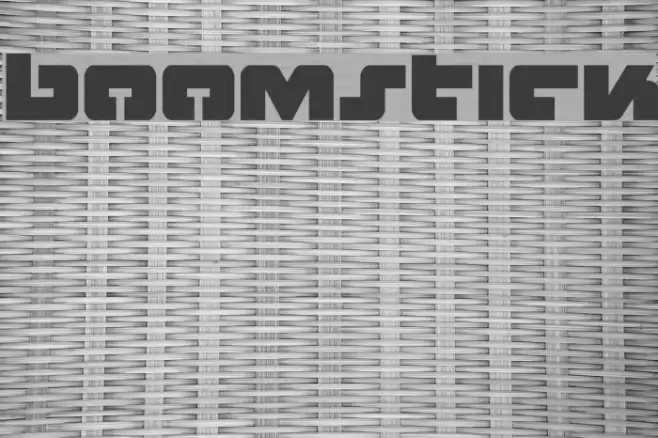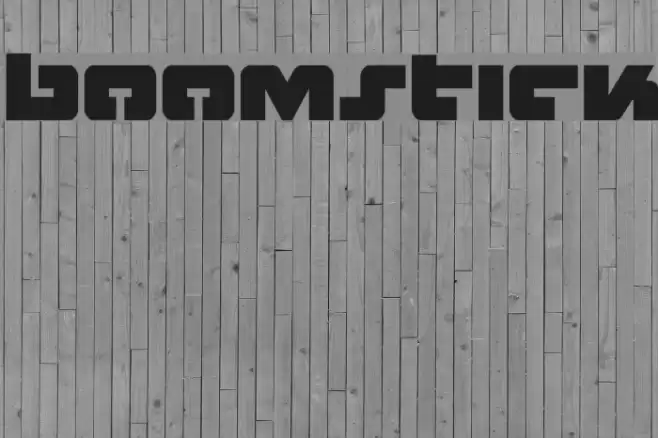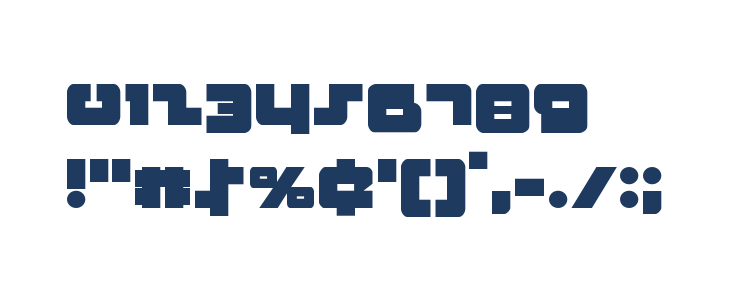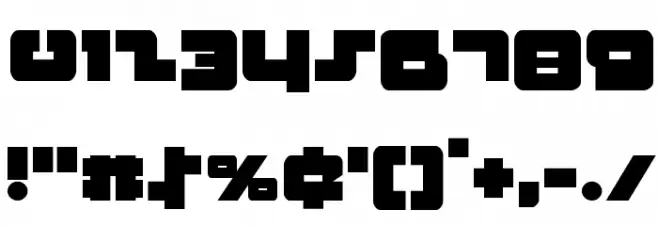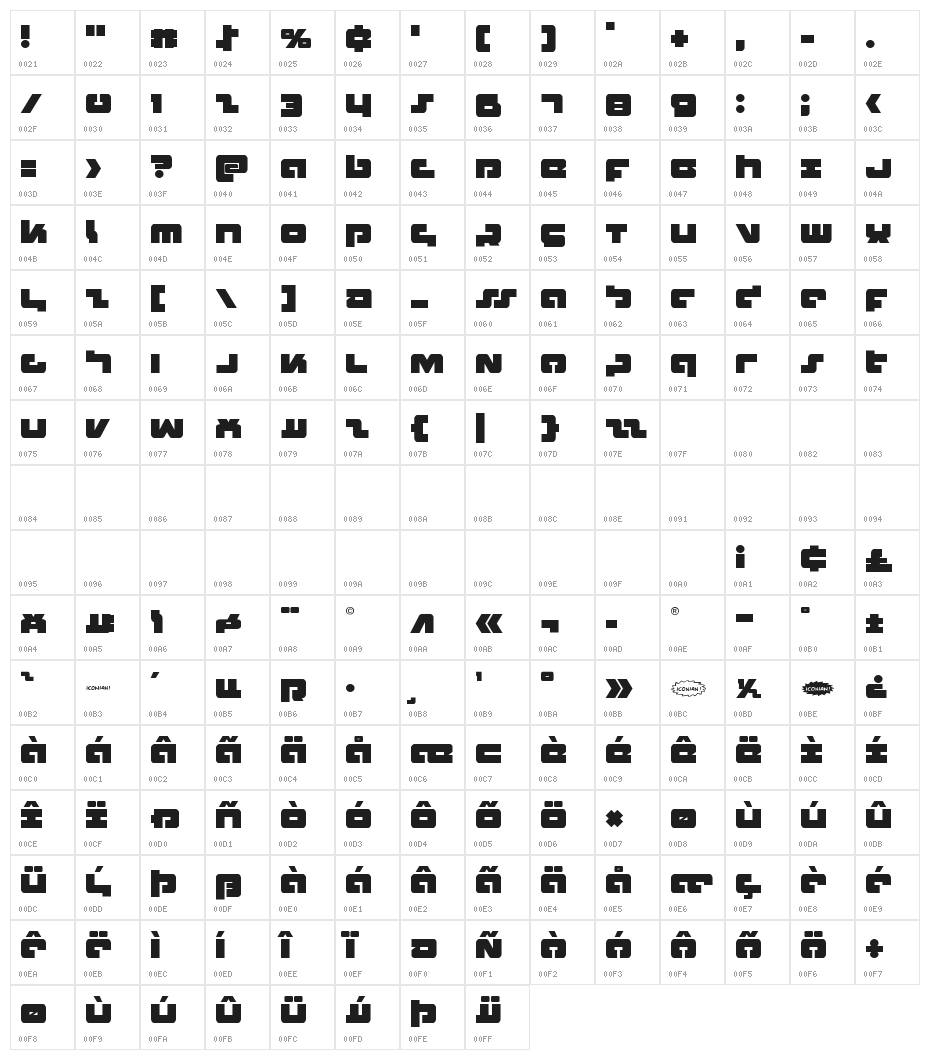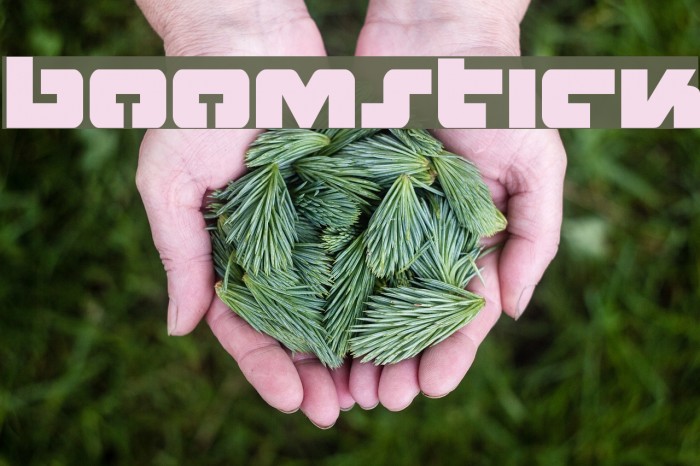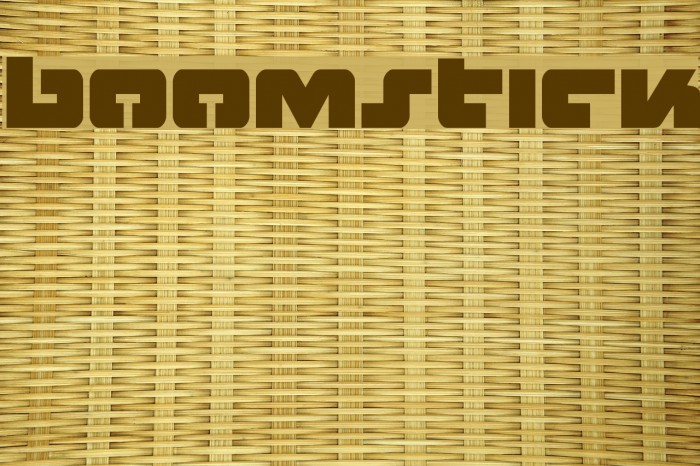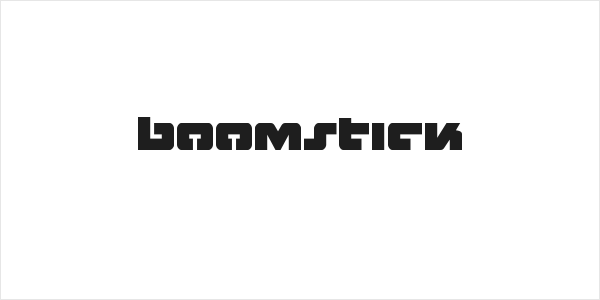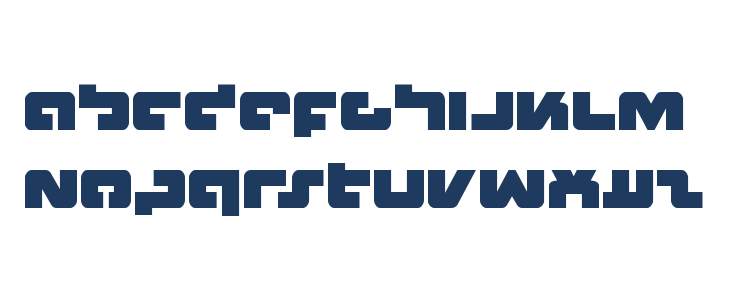
Boomstick Font
Boomstick Description
This font features a bold, geometric design with a strong, blocky appearance. Each character is constructed with thick, uniform strokes, giving it a robust and impactful look. The edges are sharp and angular, contributing to a modern and industrial feel. The uppercase and lowercase letters maintain a consistent style, with minimal variation in stroke width, ensuring a cohesive appearance across all characters. The numerals and special characters are designed to match the boldness and geometric nature of the alphabet, making the font suitable for attention-grabbing headlines and titles.
A bold, geometric font with a modern, industrial style from Sci-fi fonts.
- Proposed Projects: Ideal for branding, posters, headlines, and any design requiring a strong, impactful typeface.